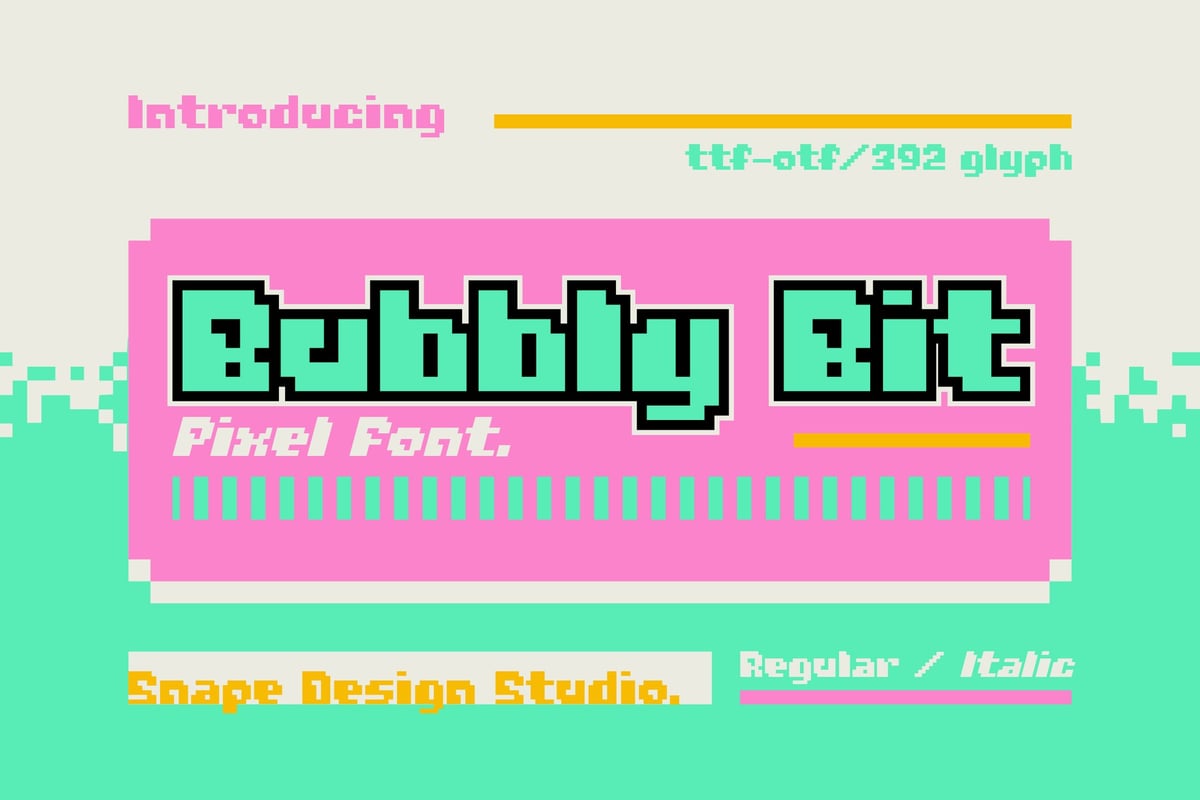
Bubbly Bit - Pixel Font
Transform your projects with this nostalgic pixel-perfect typeface that screams retro gaming authenticity. Bubbly Bit brings that classic 8-bit charm to modern design projects. This chunky pixel font captures the essence of vintage arcade games while remaining perfectly suited for contemporary applications. Ideal applications include: Retro game design and gaming themes Movie titles and film projects Documentary graphics Eye-catching logos and branding Bold posters and promotional materials Book...